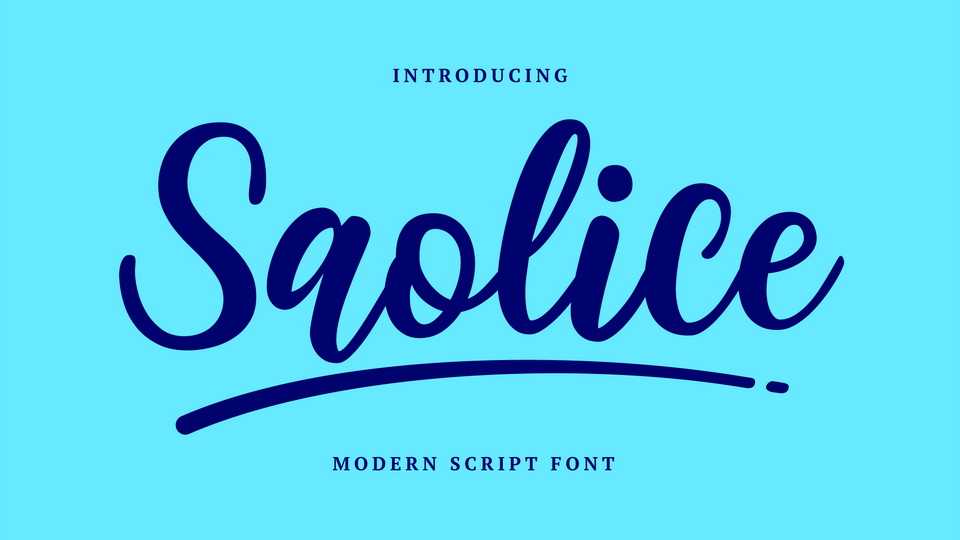
Download Saolice font, a simple and incredibly sweet handwritten font. Saolice is perfect for many sorts of projects, like quotes, greeting cards, invitation cards, children books, and so much more.
Designer: Brithos Type